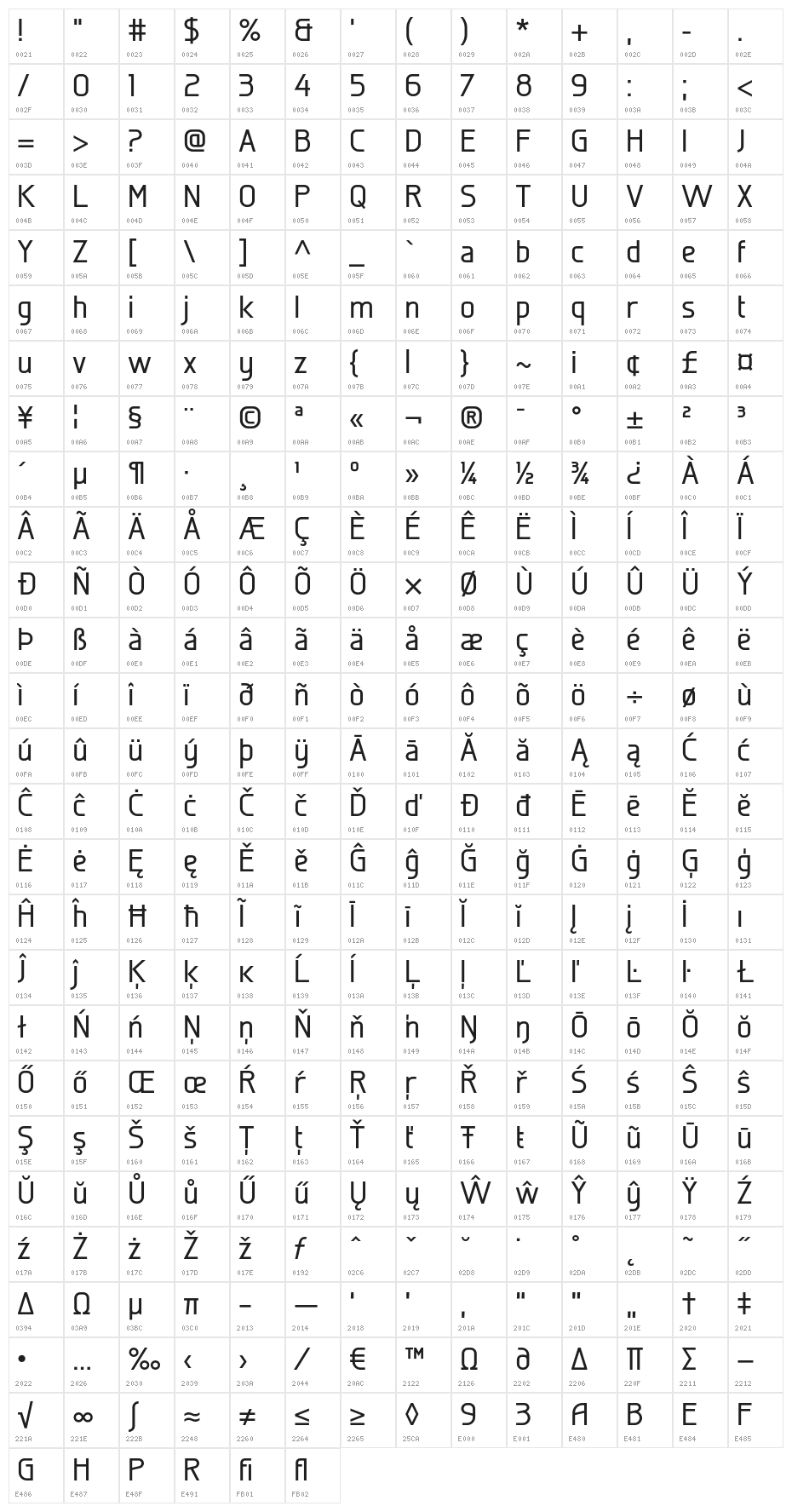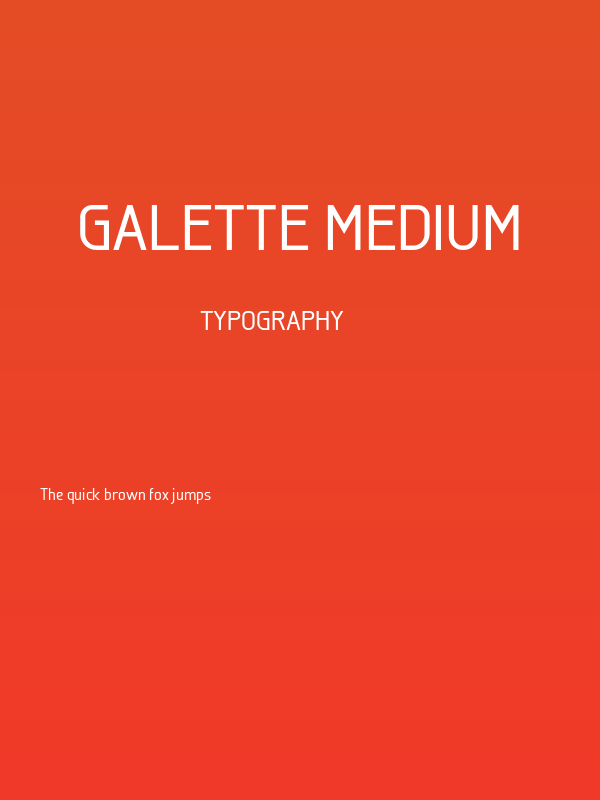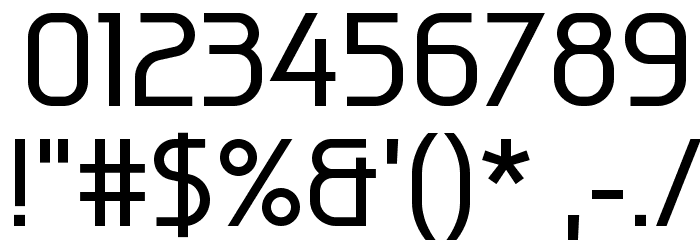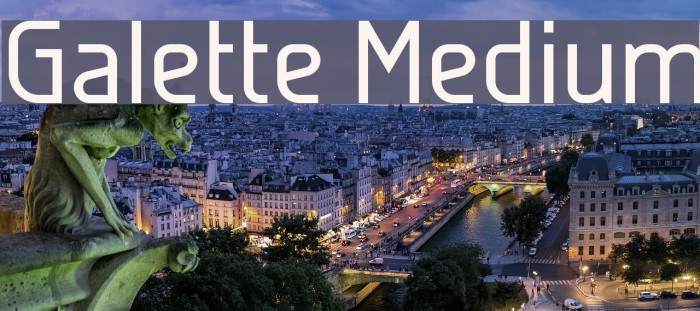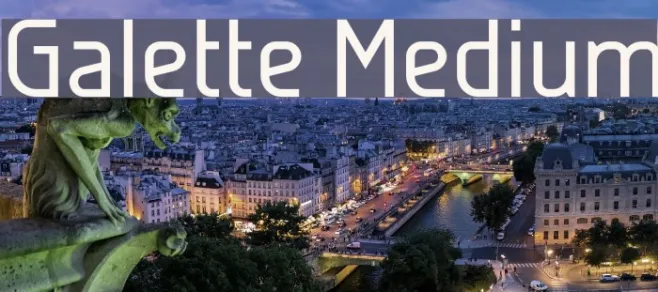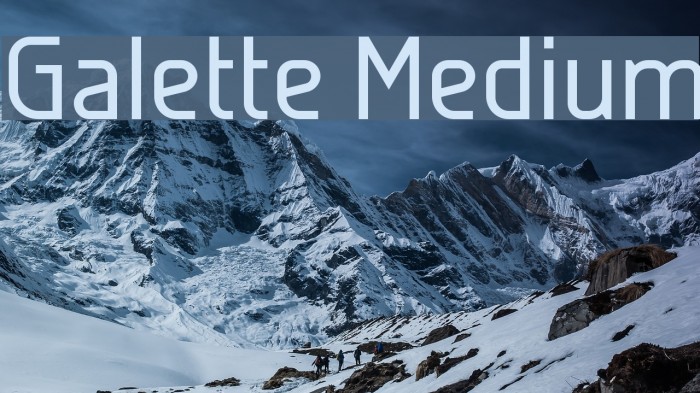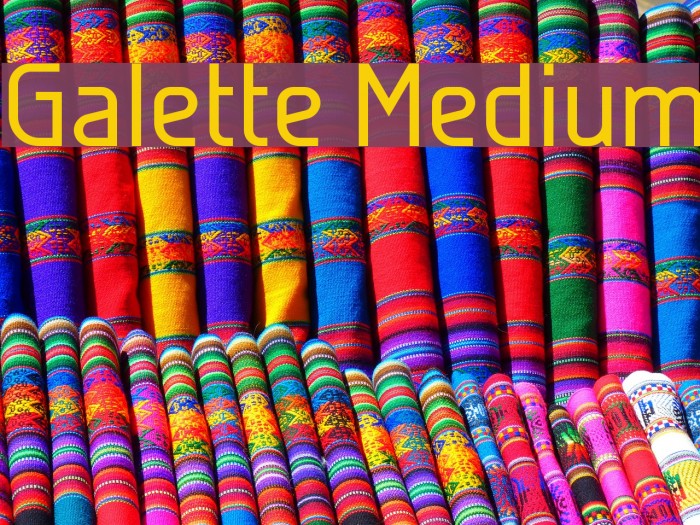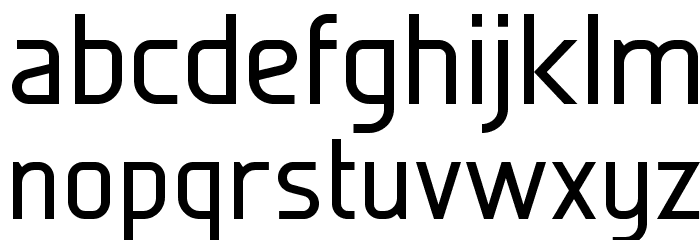
Galette Medium Font
Galette Medium Description
This font features a clean and modern sans-serif design with a geometric structure. The characters are well-balanced, offering a harmonious appearance that is both functional and aesthetically pleasing. The uppercase letters are bold and assertive, while the lowercase letters maintain a smooth and approachable look. Numbers and special characters are crafted with precision, ensuring clarity and readability. The overall style is versatile, making it suitable for a wide range of applications from digital interfaces to print media.
| Proposed Projects | Ideal for branding, web design, user interfaces, and print materials such as brochures and posters. |